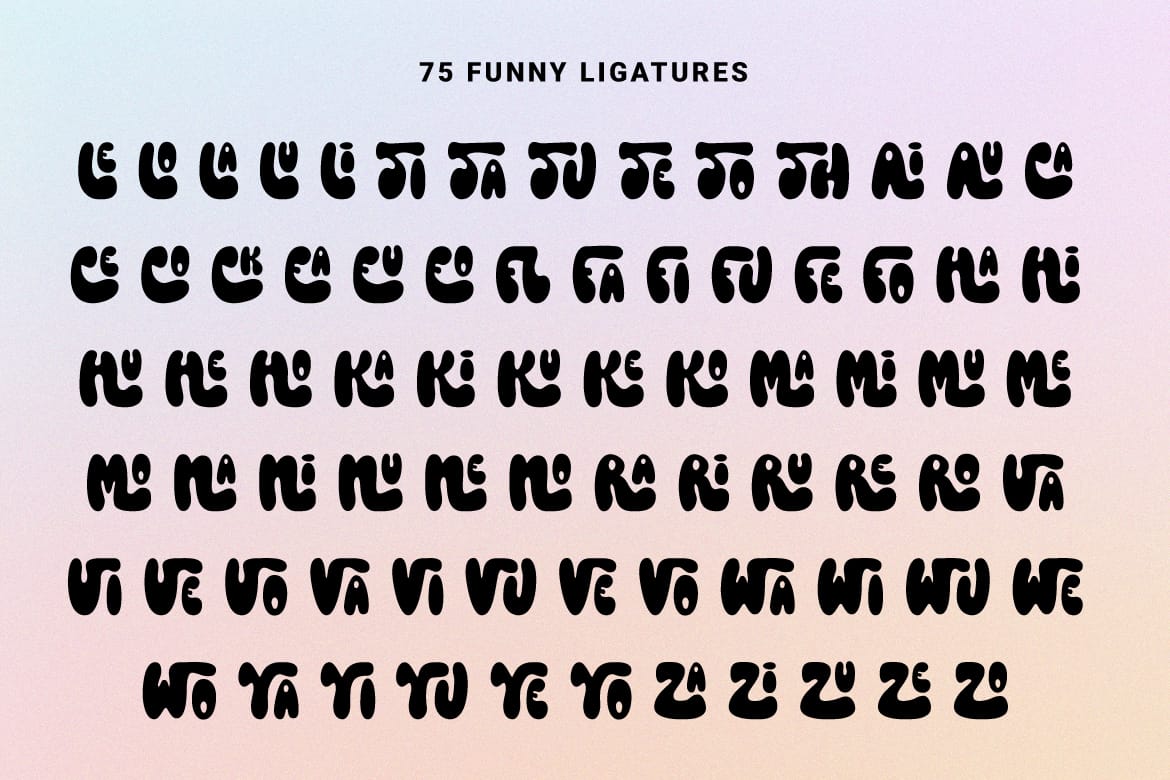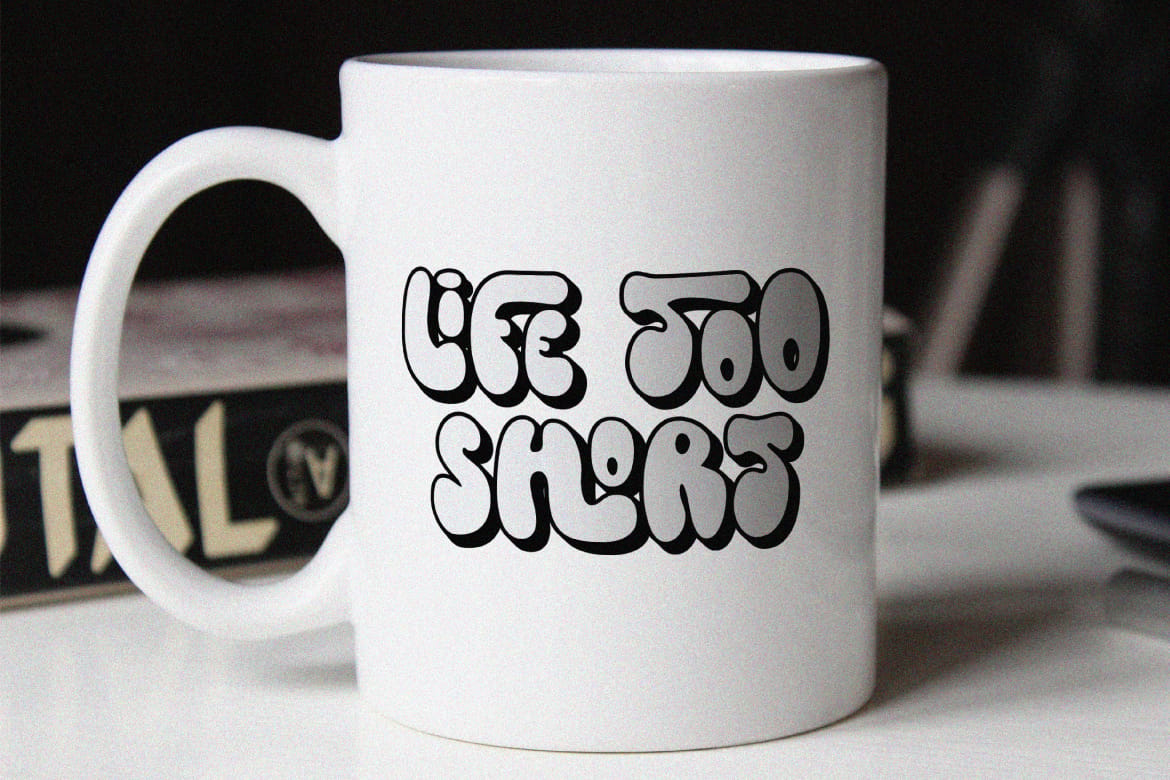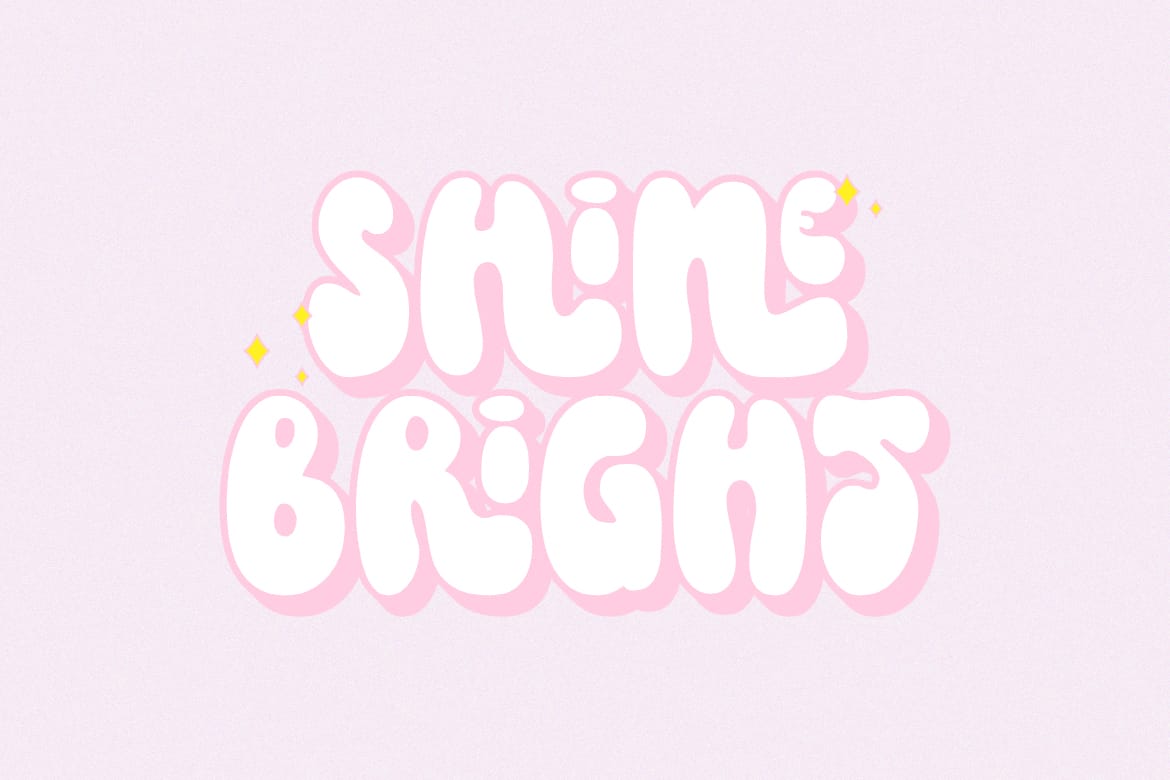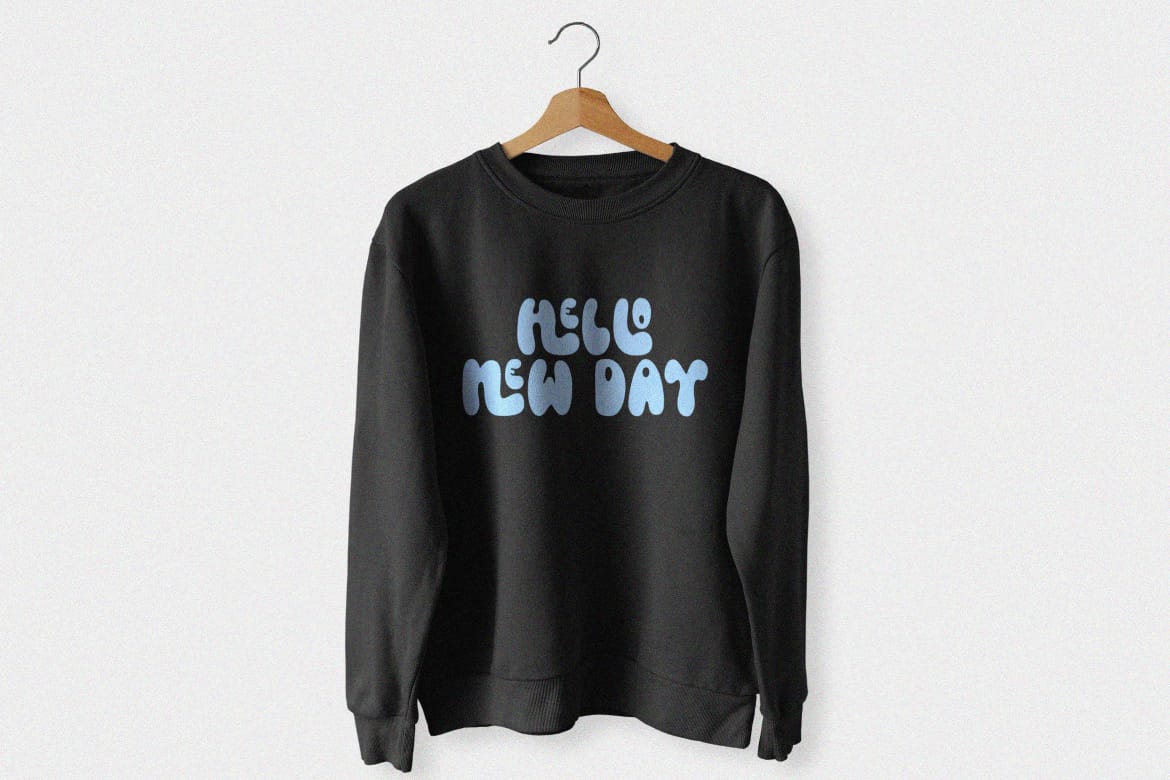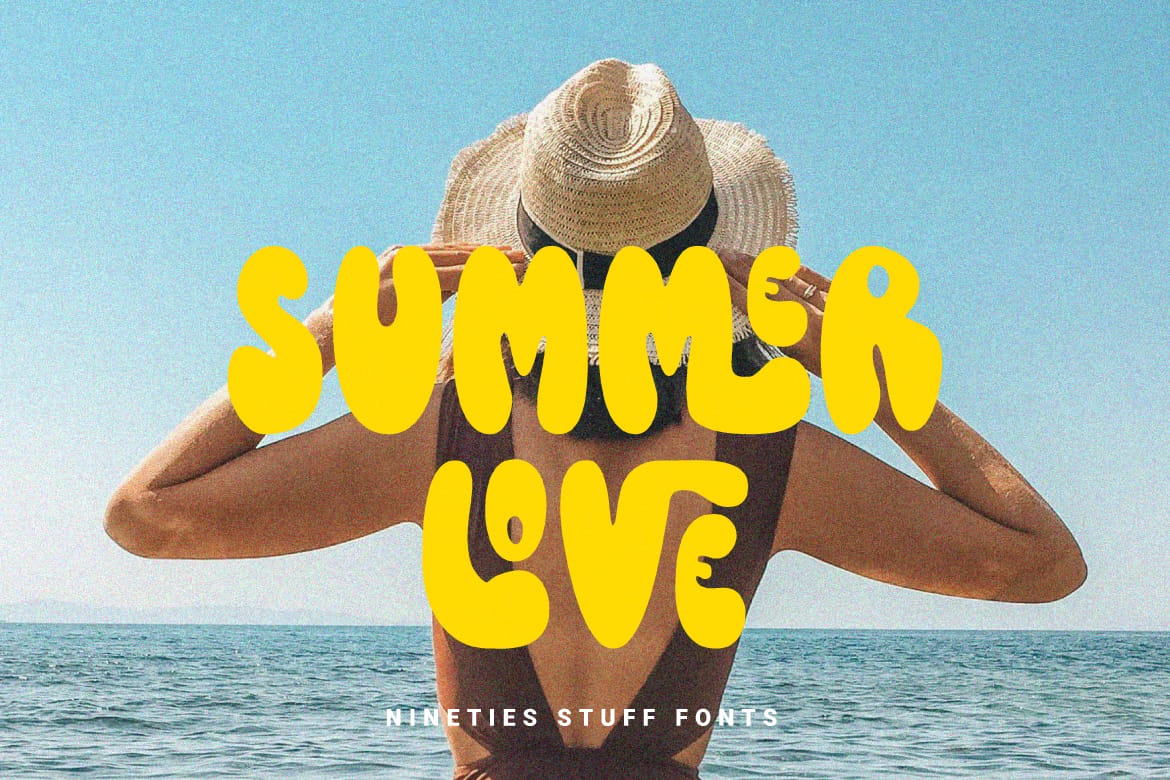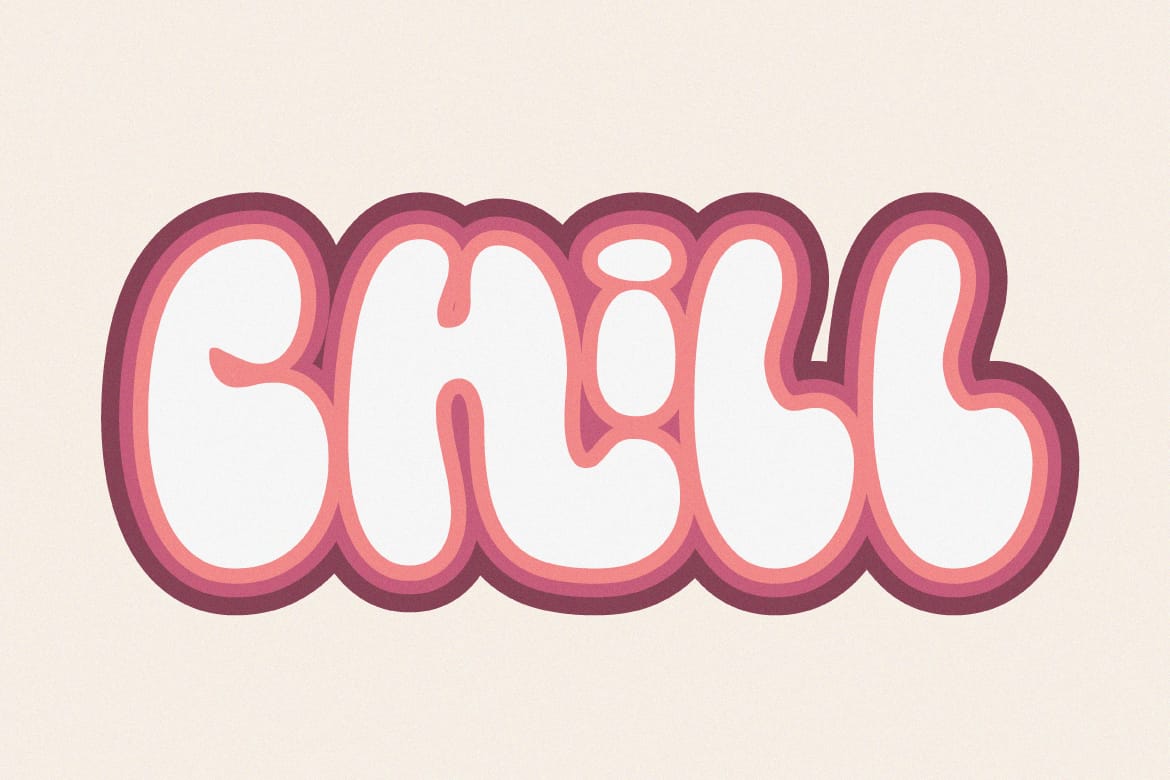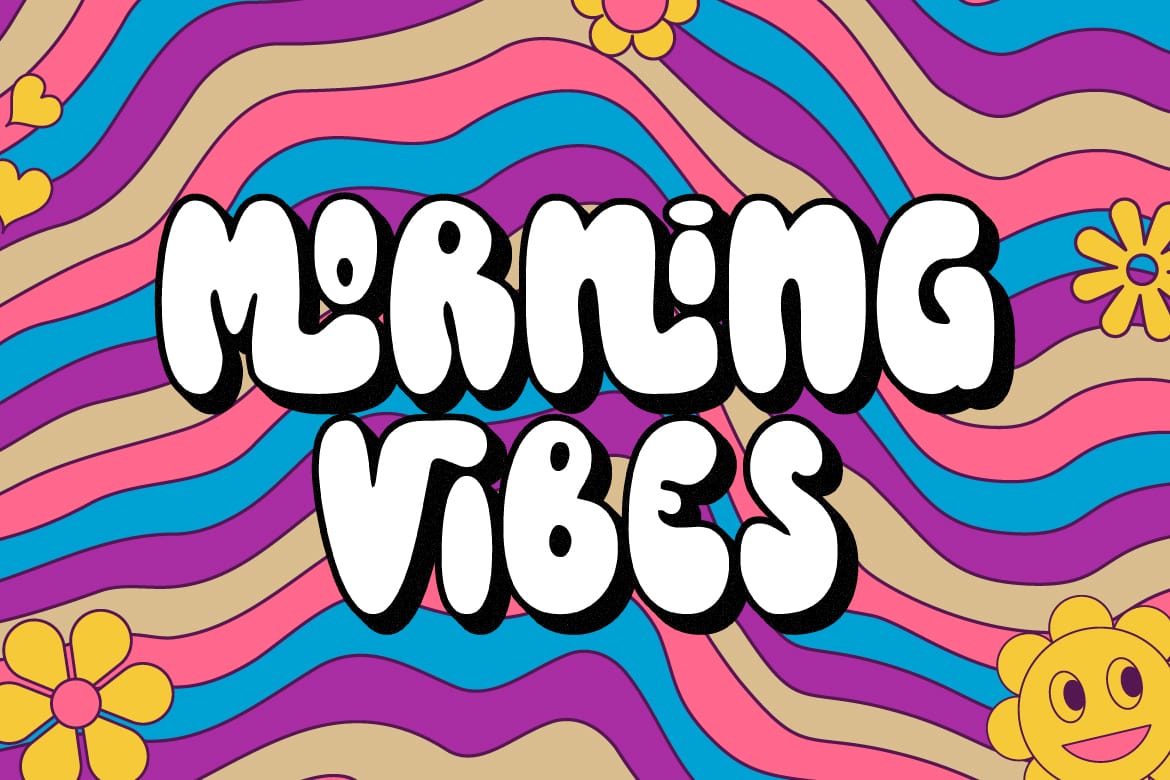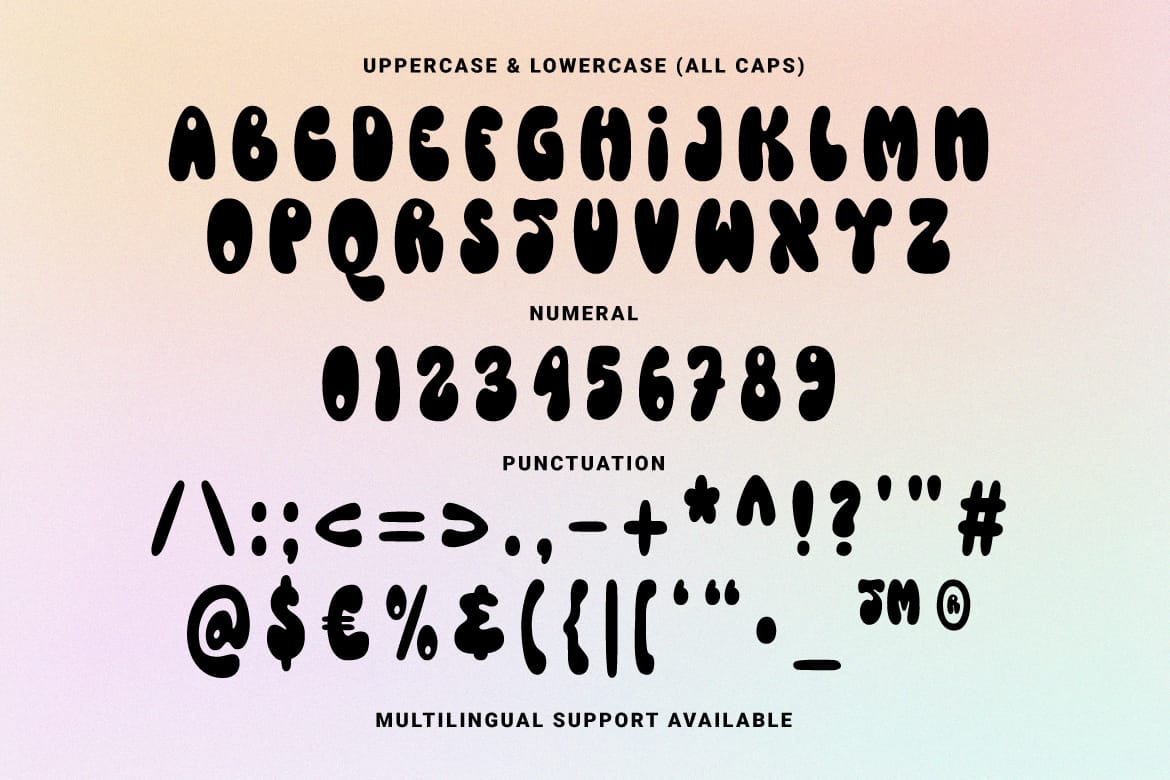
Introducing this new groovy font. Hand drawn font with unique and fun characteristics. Plus 75 character ligatures to make your designs more interesting. Also available in two styles, namely regular and extrude. Suitable for poster design, merchandise, creative posts, logos or branding.
Features: Uppercase, Lowercase, Numeral, Punctuation, Multilingual & Ligatures.
- Groovy hand-drawn display typeface
- 75 ligatures, two font styles